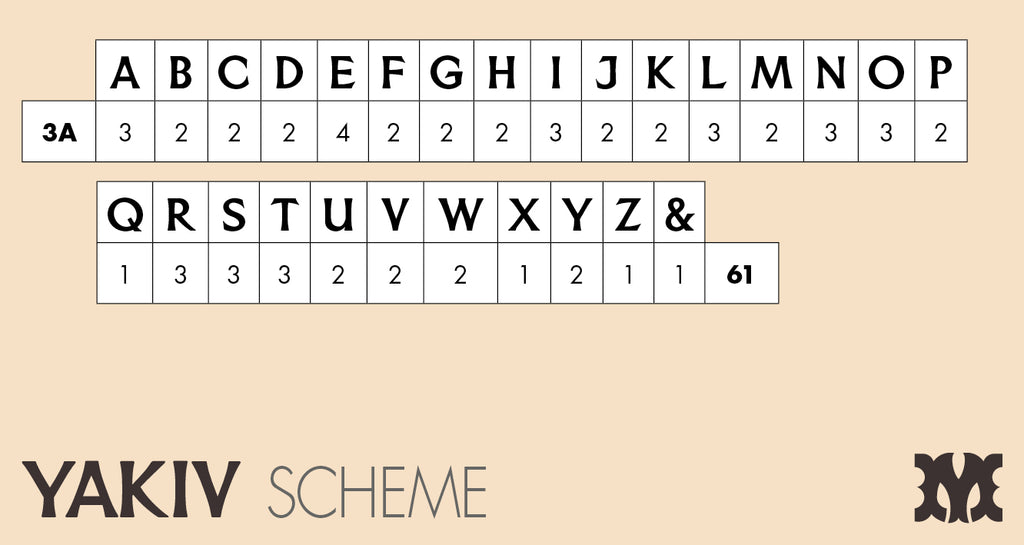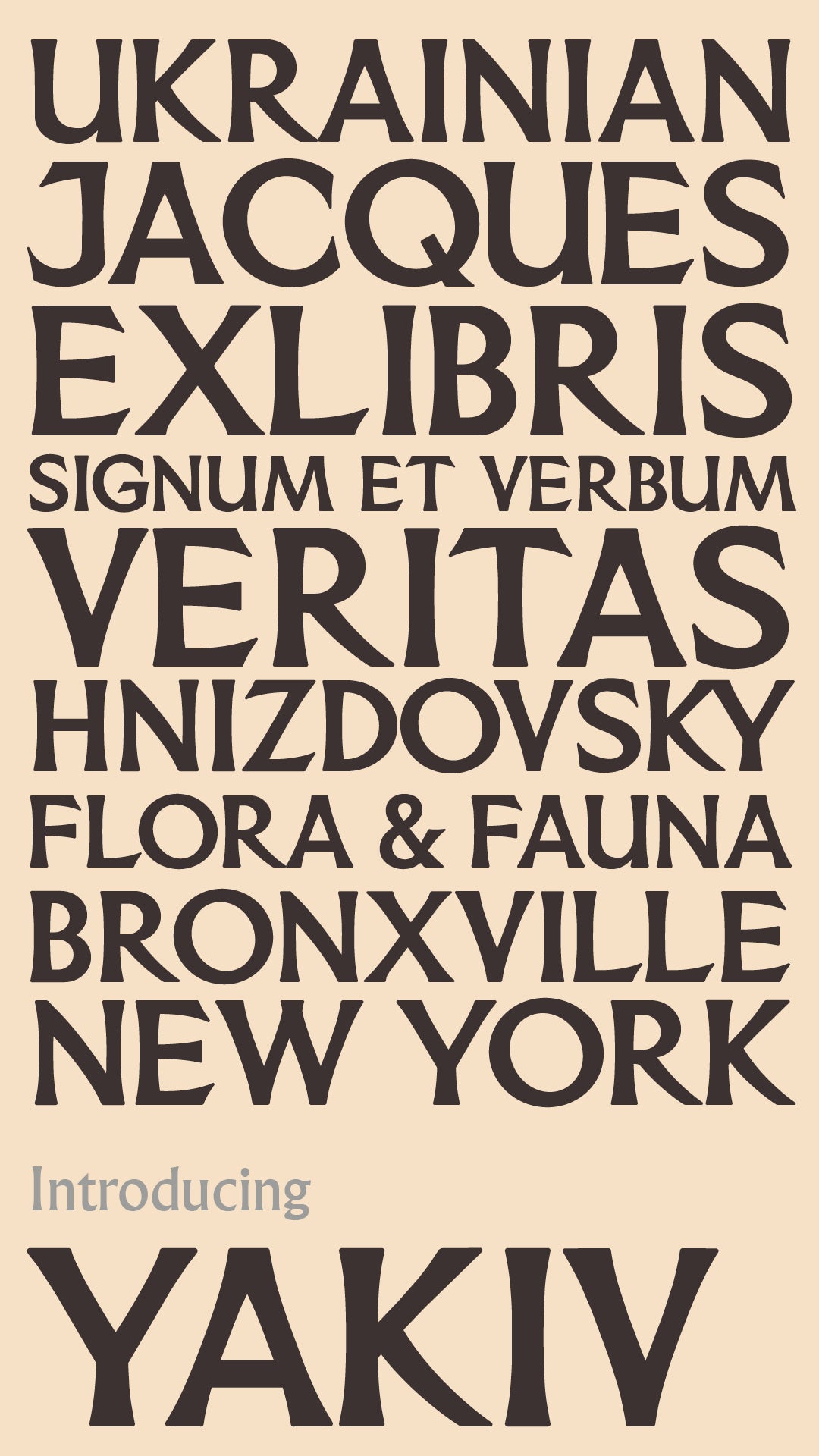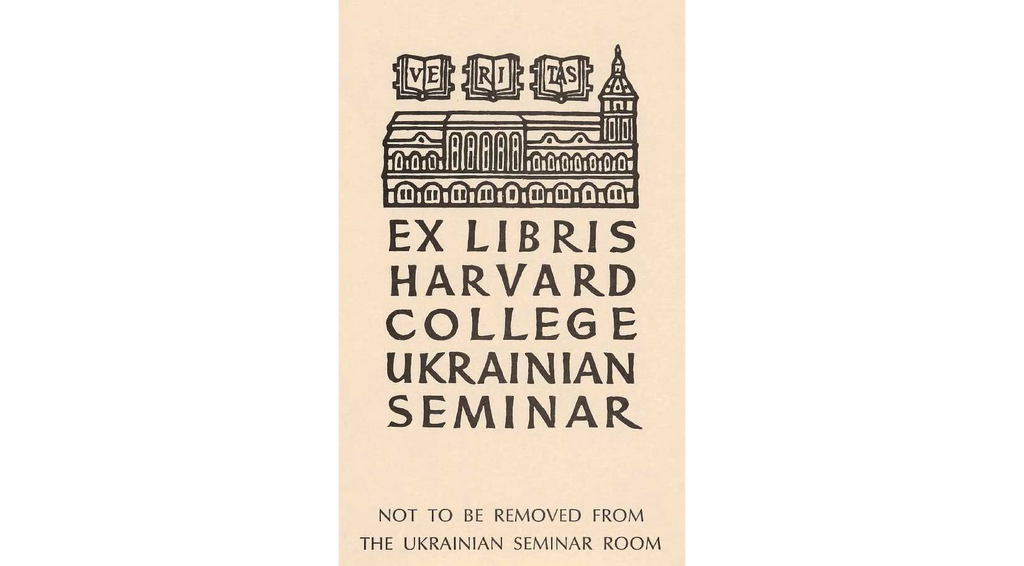
'Yakiv' letterpress woodtype typeface
Introducing 'Yakiv' - a typeface based on an Ex Libris book plate design by Jacques (Yakiv) Hnizdovsky from 1972.
6 line (25.4mm), 10 line (42.3mm) and 16 line (67.7mm) sizes cut from end grain English hardwood using a combination of modern CNC technology and traditional hand woodworking tools (including an original printers saw), made to English type-high (0.918in or 23.3mm) within plus or minus 0.1mm tolerance, sealed with shellac and hand finished with a traditional polished printing surface.